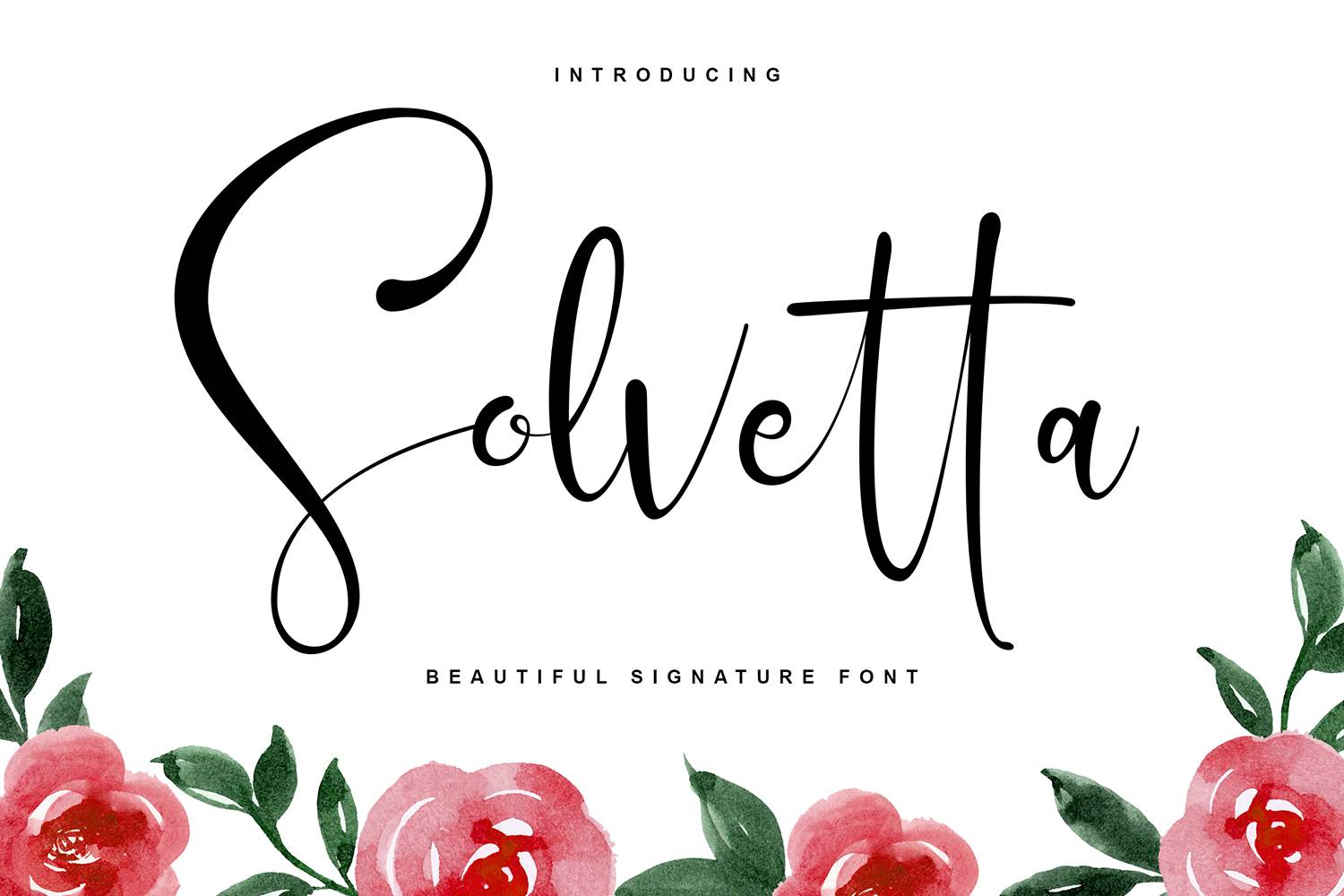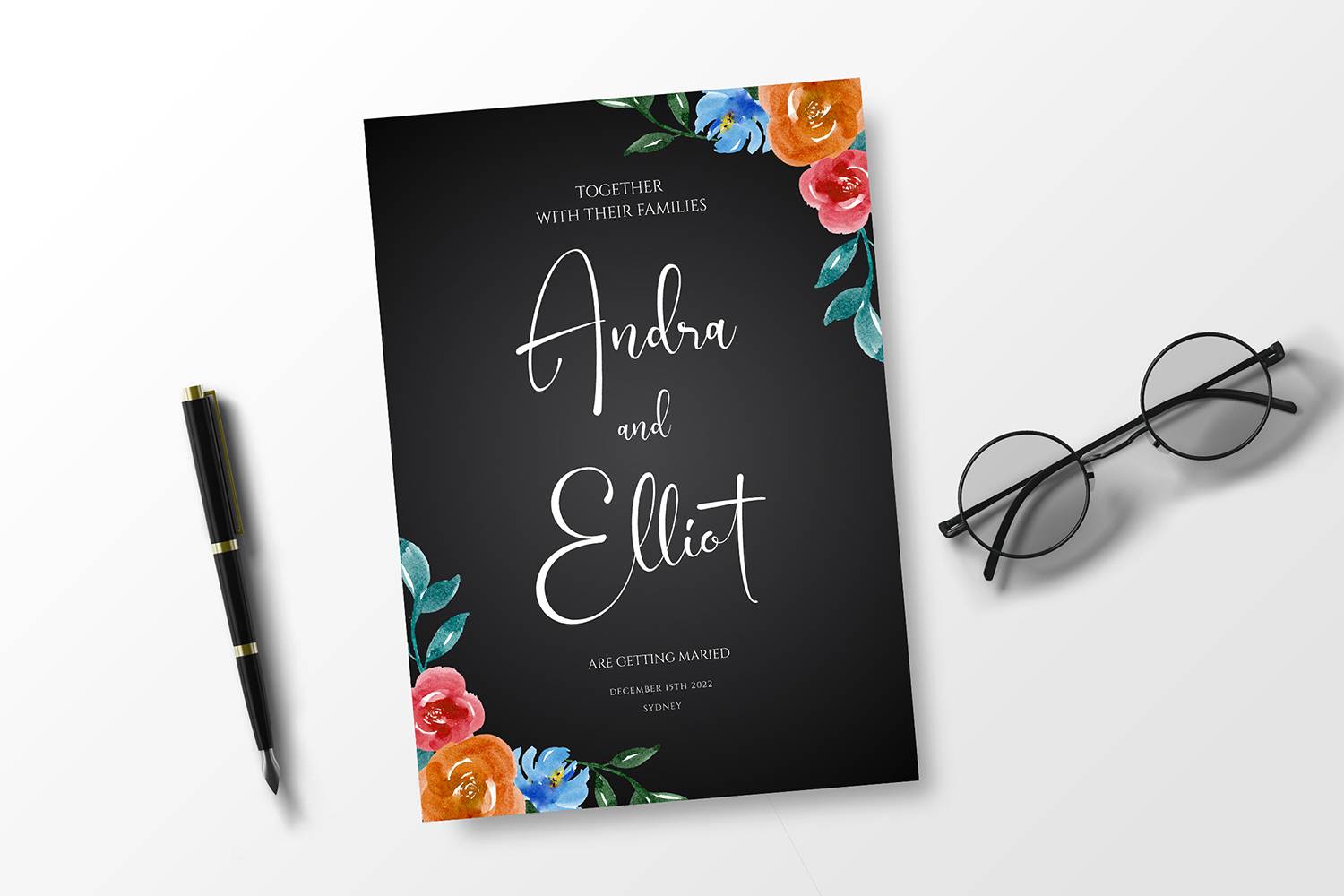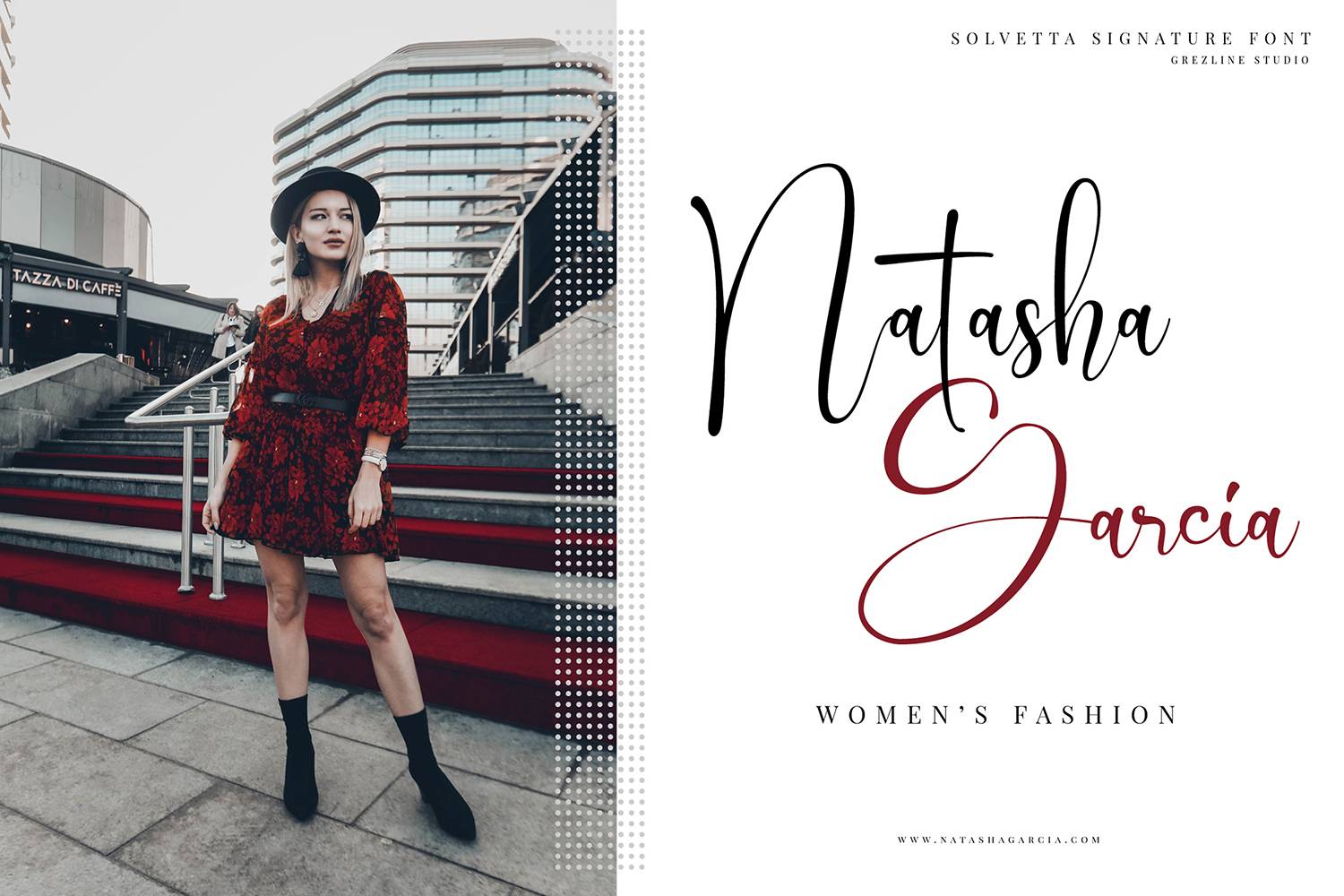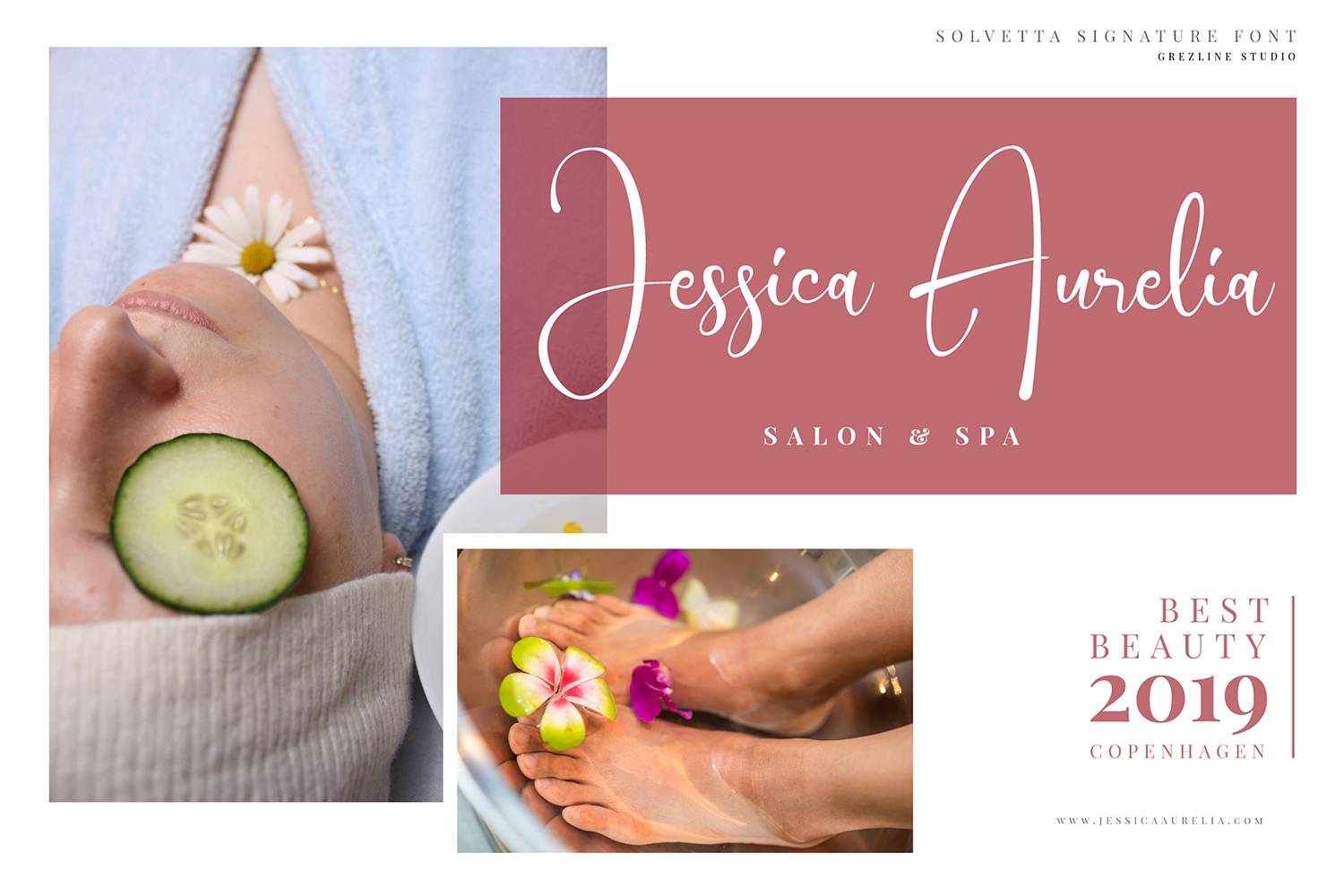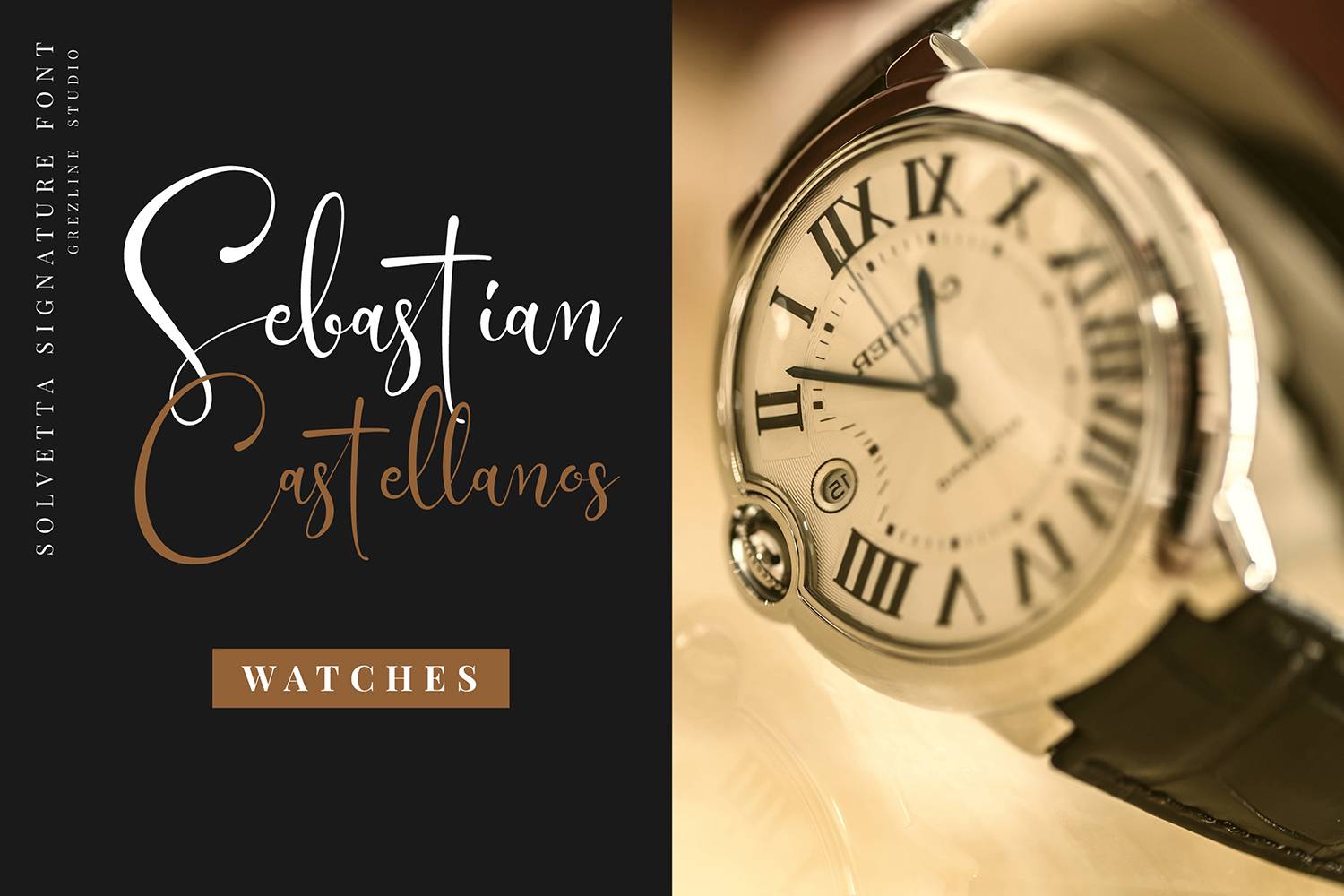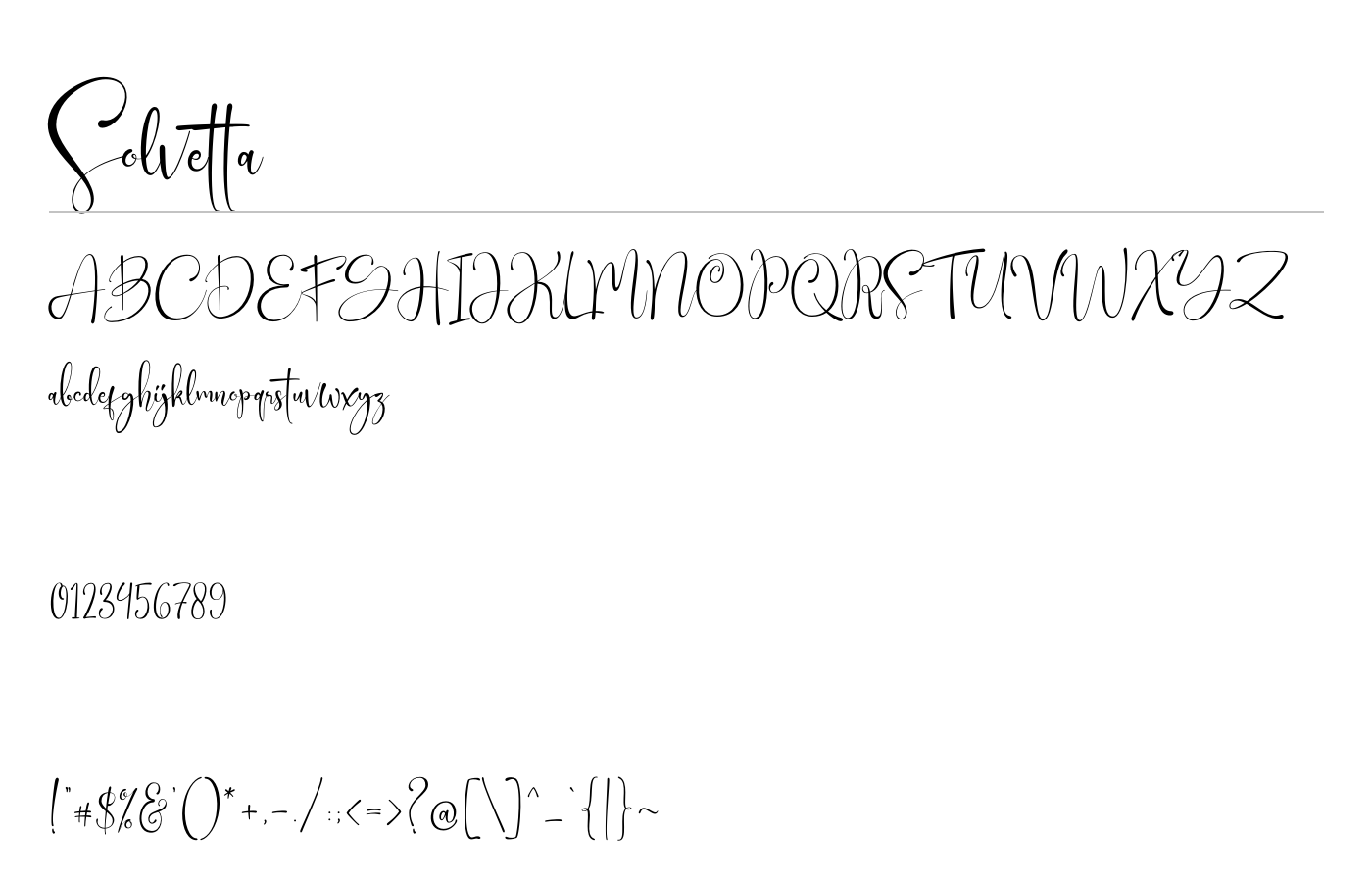
Solvetta is a delicate script font with a handwritten, elegant feel, featuring thin, flowing strokes and distinctive looping details that give it a refined, artistic vibe. Its light weight and airy letterforms make it perfect for stylish invitations, branding, and decorative uses where a touch of sophistication and personal charm is desired. This font works especially well in logos and headline designs that need a graceful, modern flair.
Solvetta Font
About Solvetta Font
| Font family | Solvetta Font |
| Release date | 2020-05-27 |
| Designer | Akhmad Reza Fauzi |